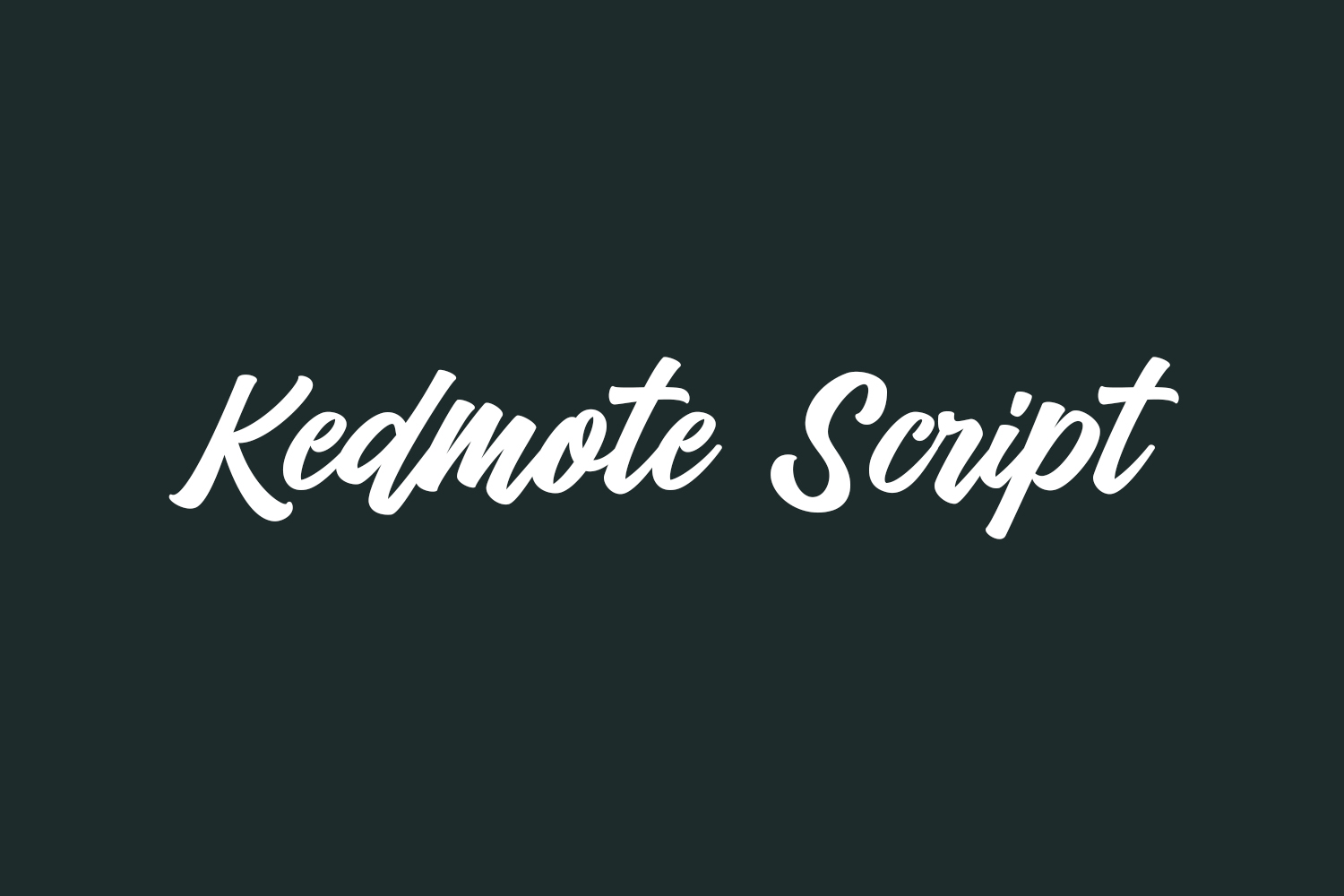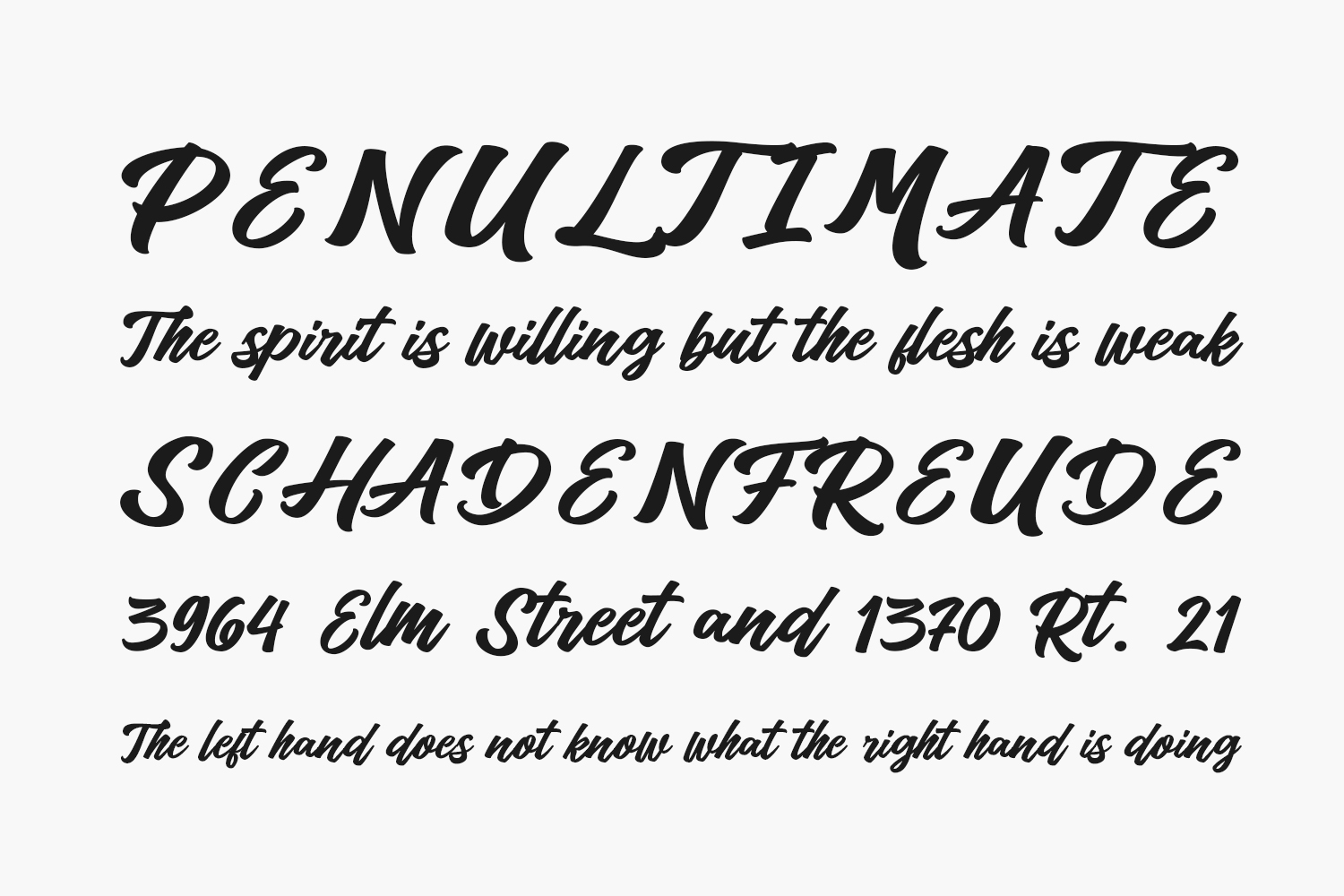
Experience the exceptional charm of Kedmote Script Free Font a distinctive handwritten font masterpiece kedmote is a one-of-a-kind handwritten font meticulously crafted to perfection. With its impeccably balanced curves and stylish personality, it’s the ideal choice for logos, headlines, badges, packaging, and a wide range of creative projects. Kedmote Script Free Font is free for personal use only. Please purchase the full version for commercial use.